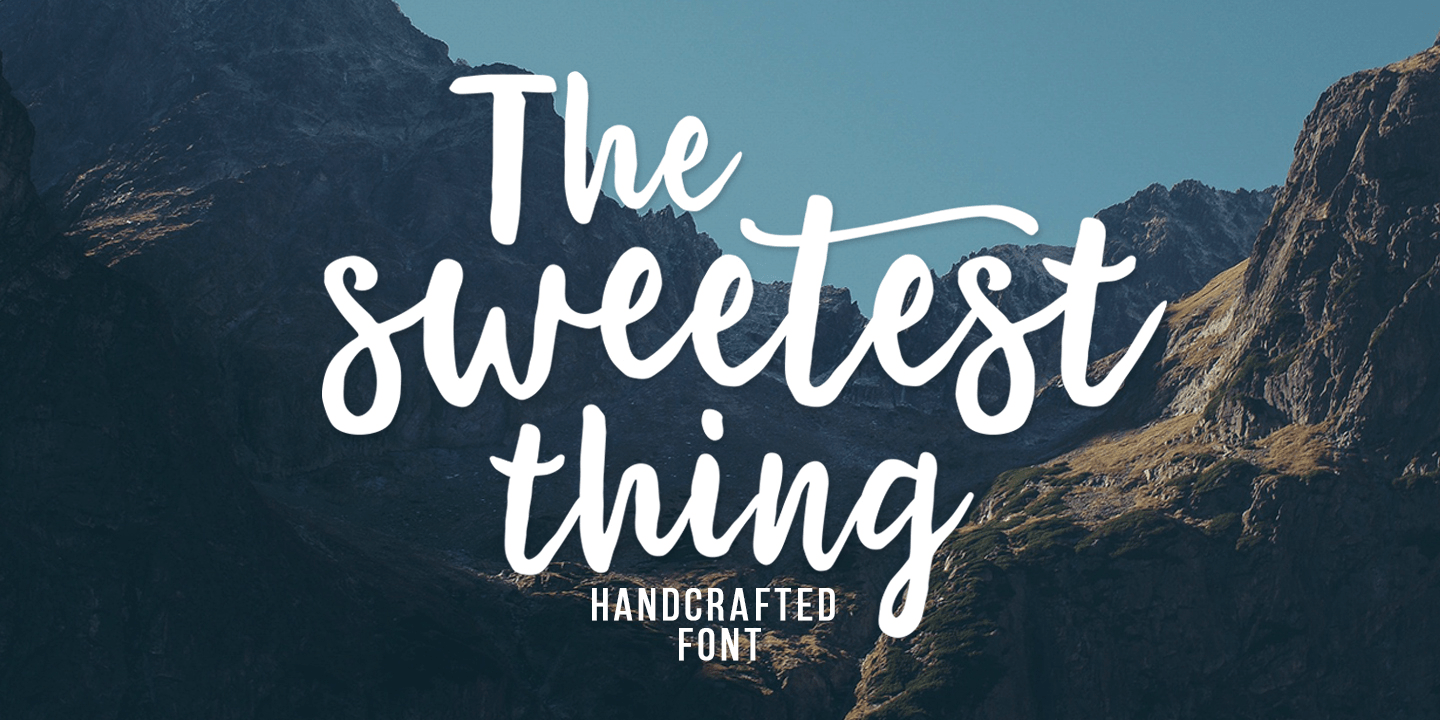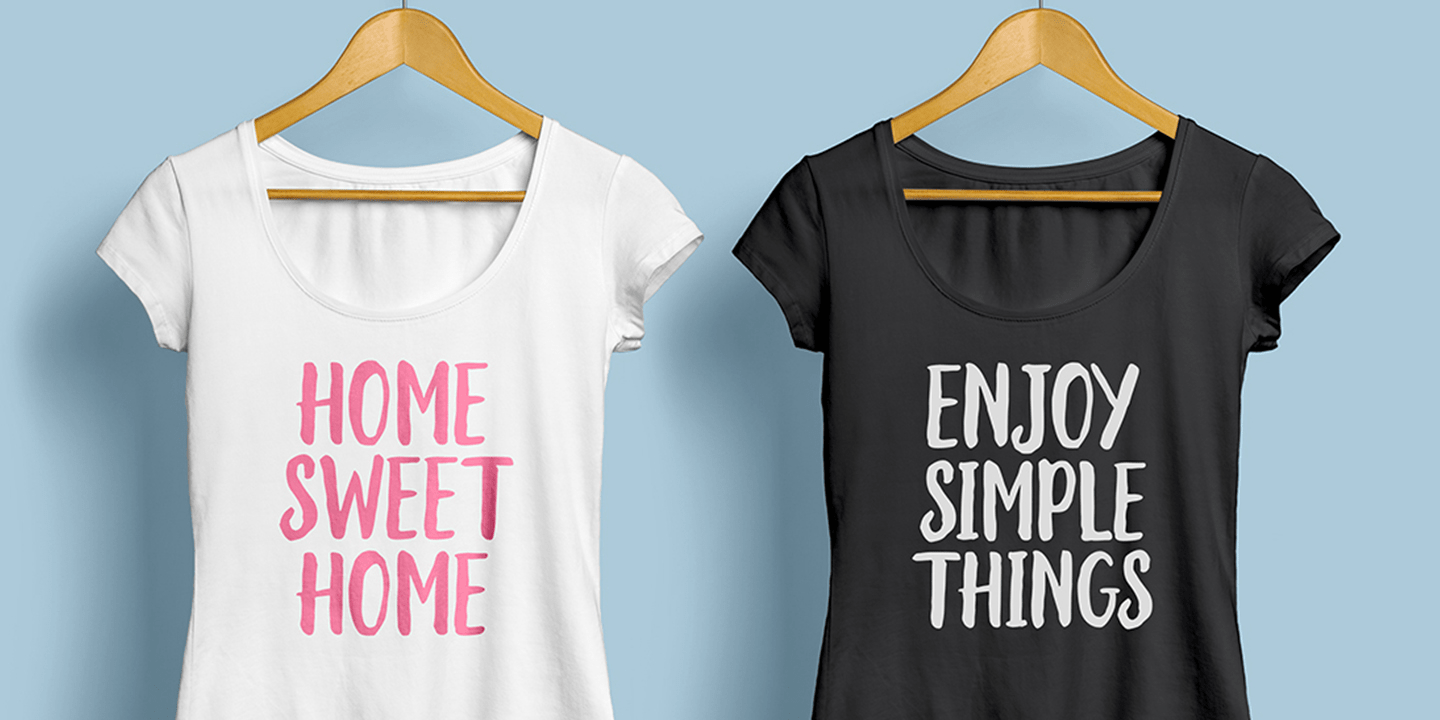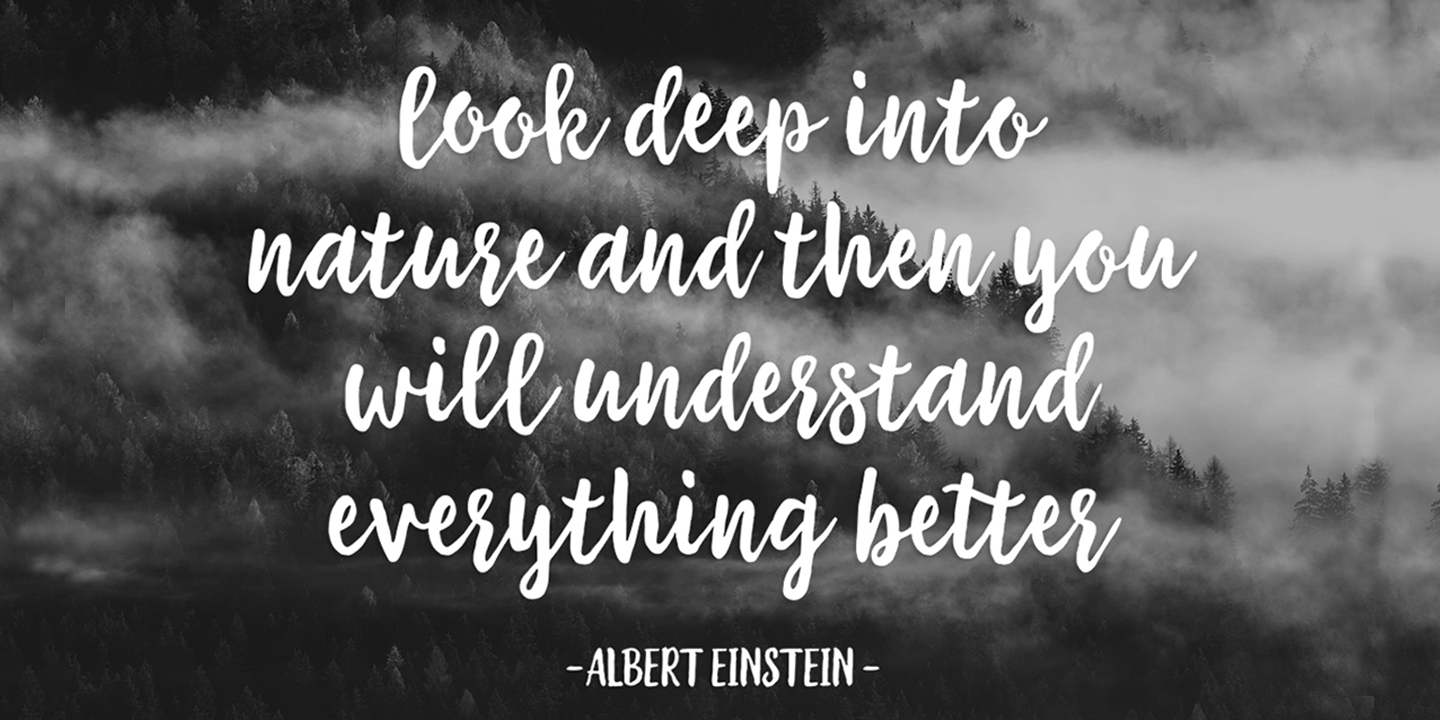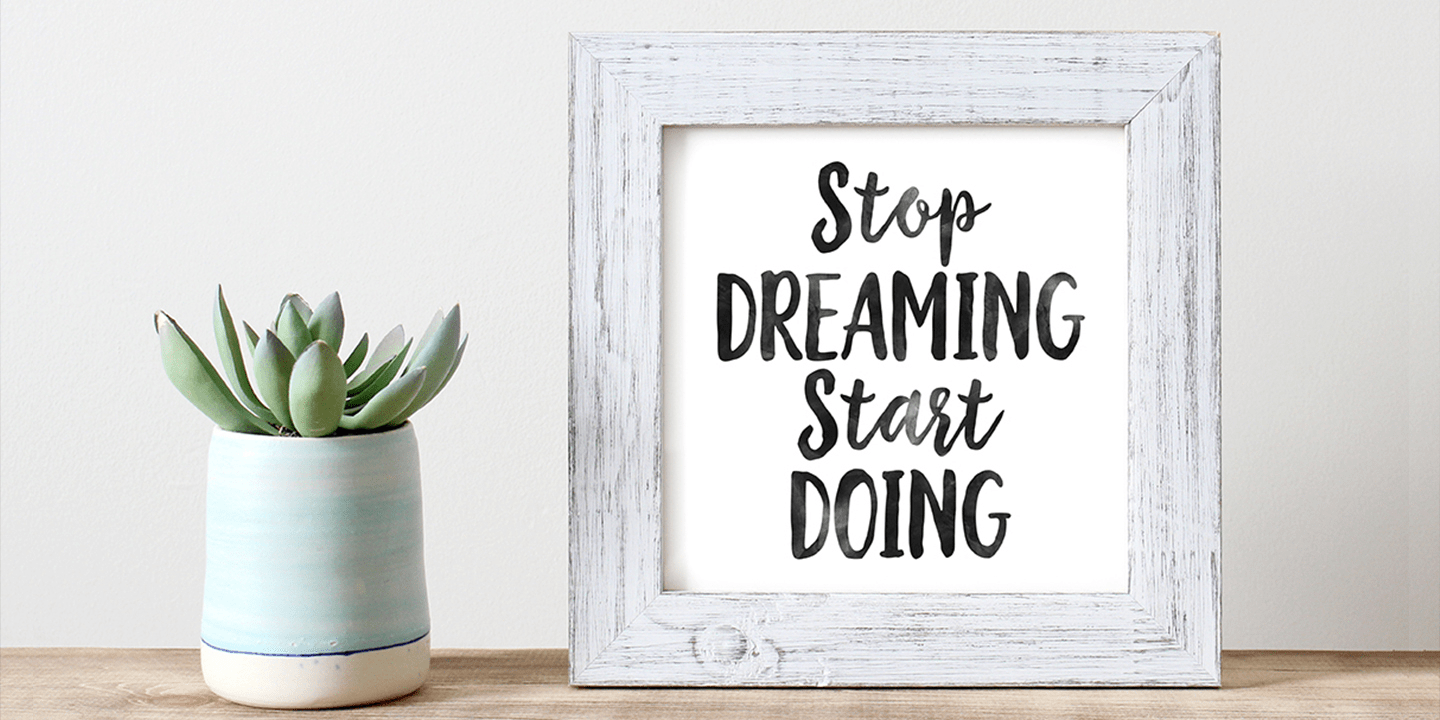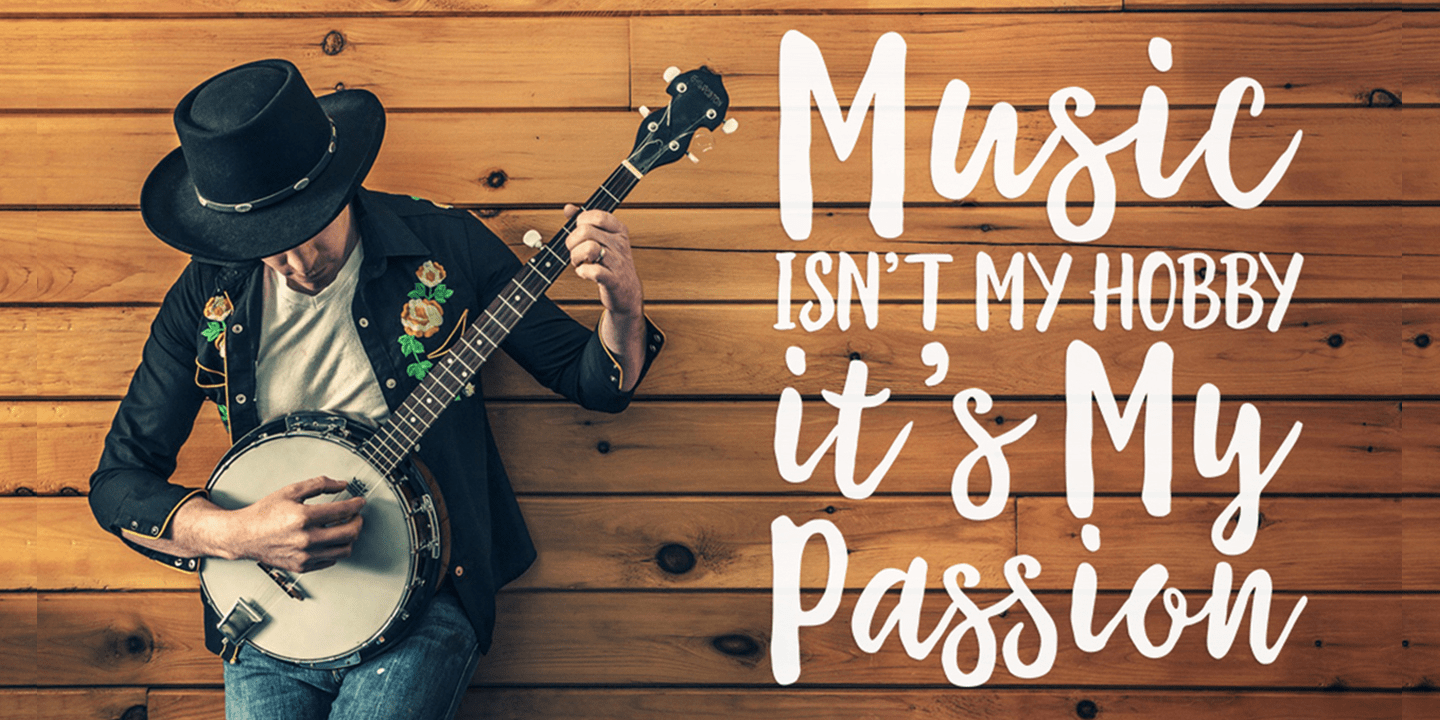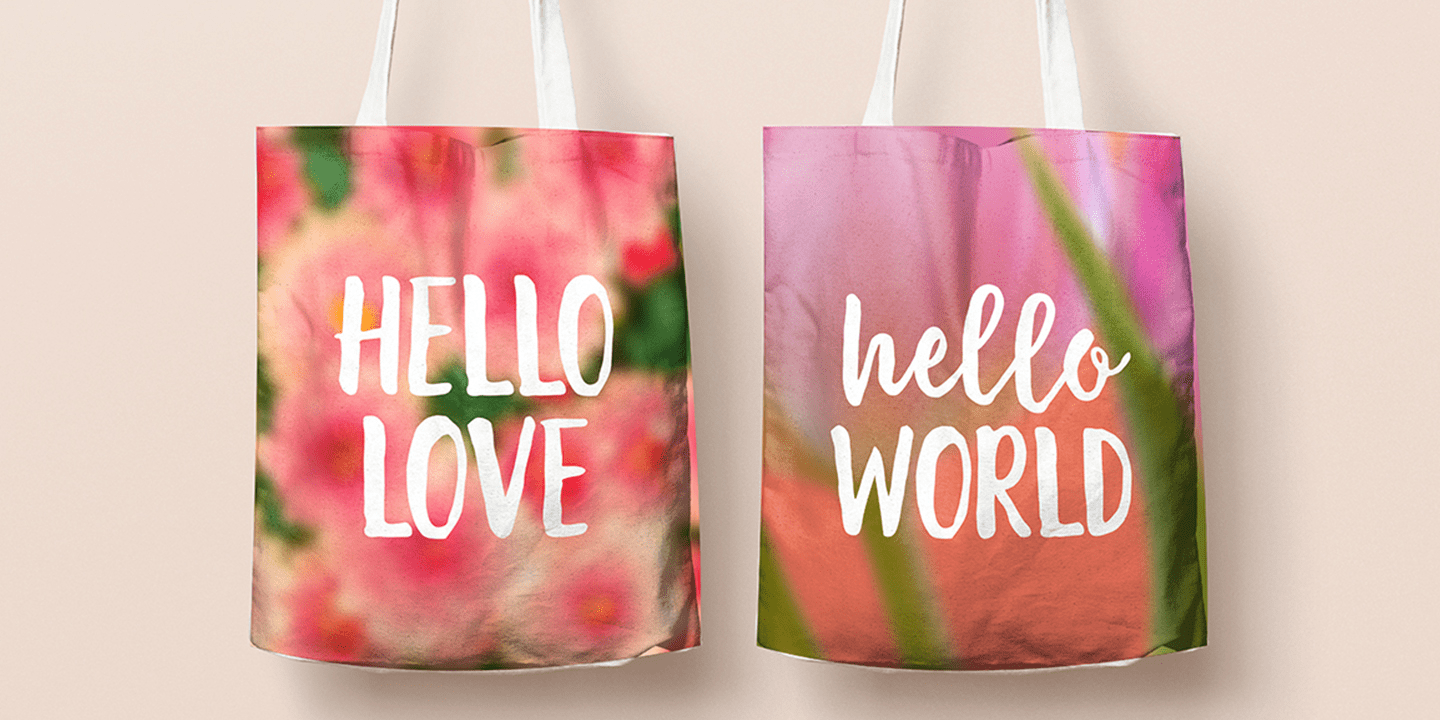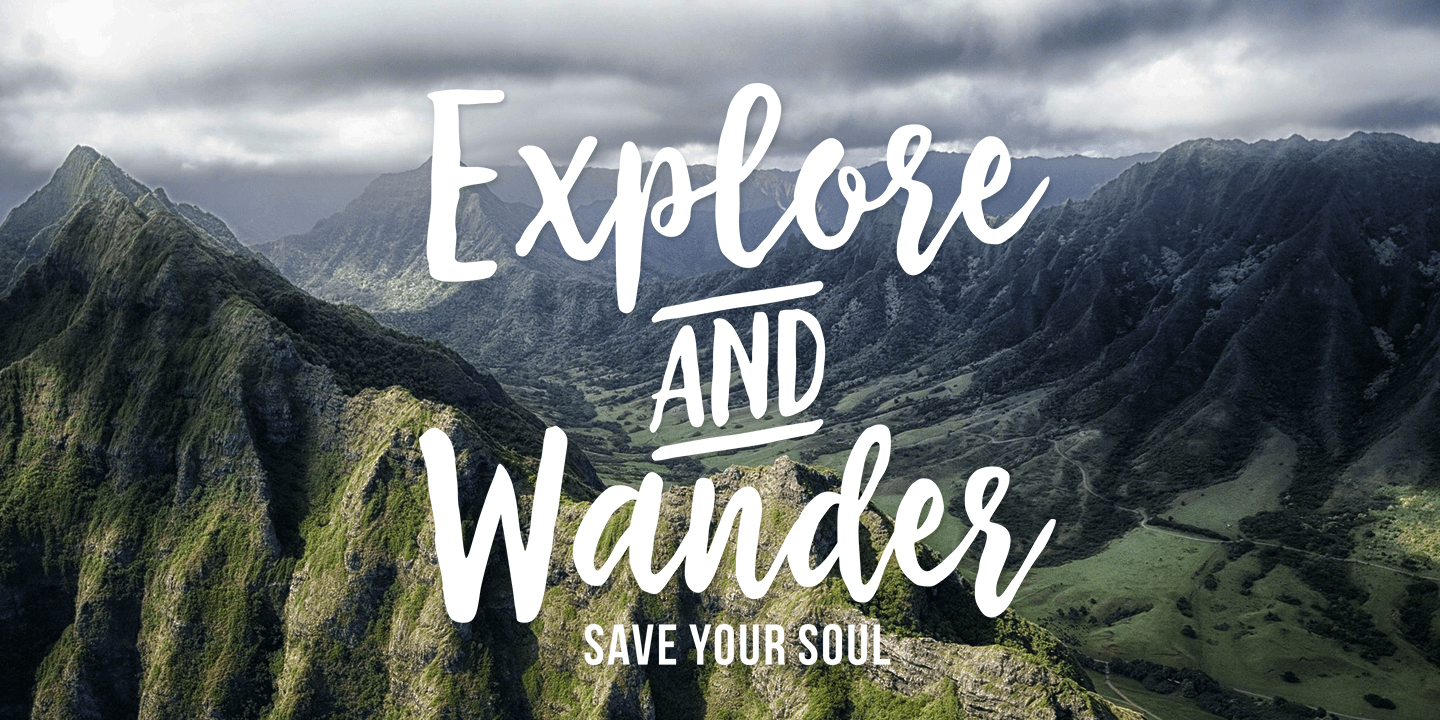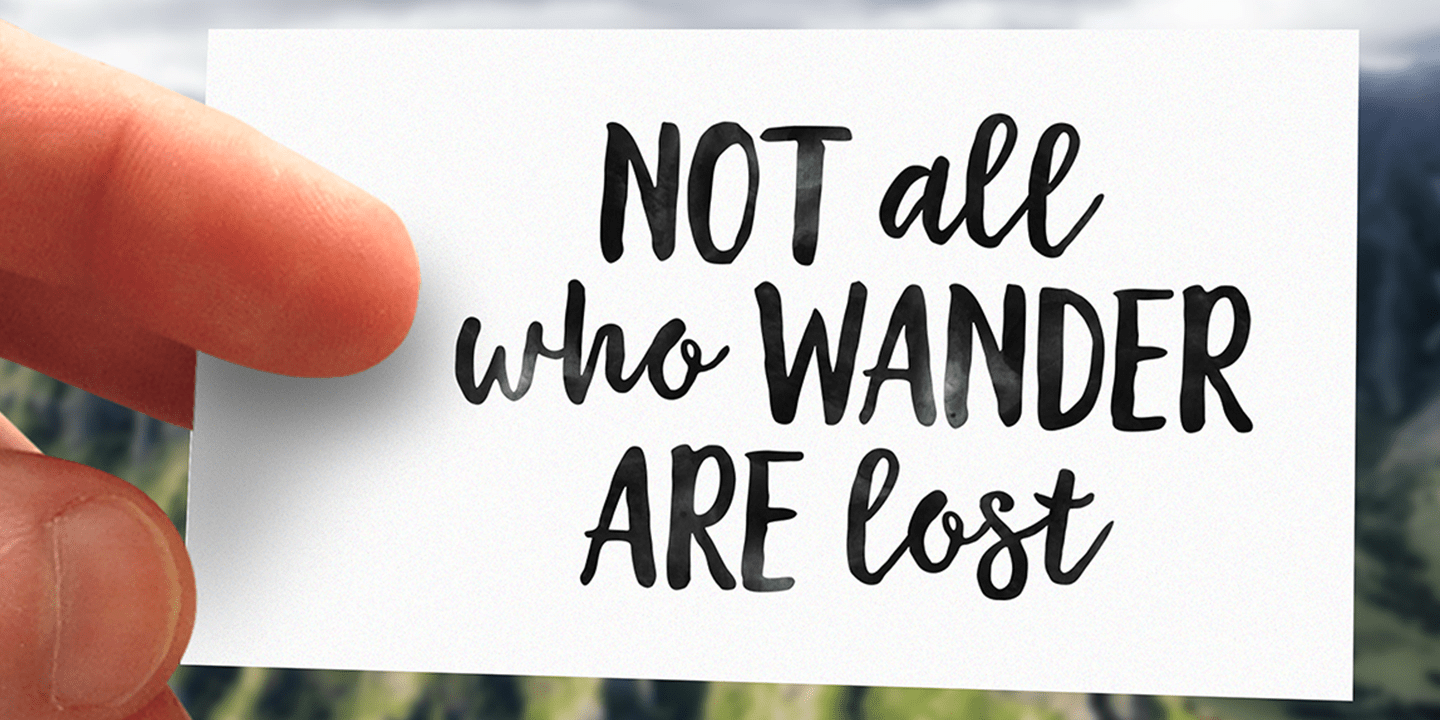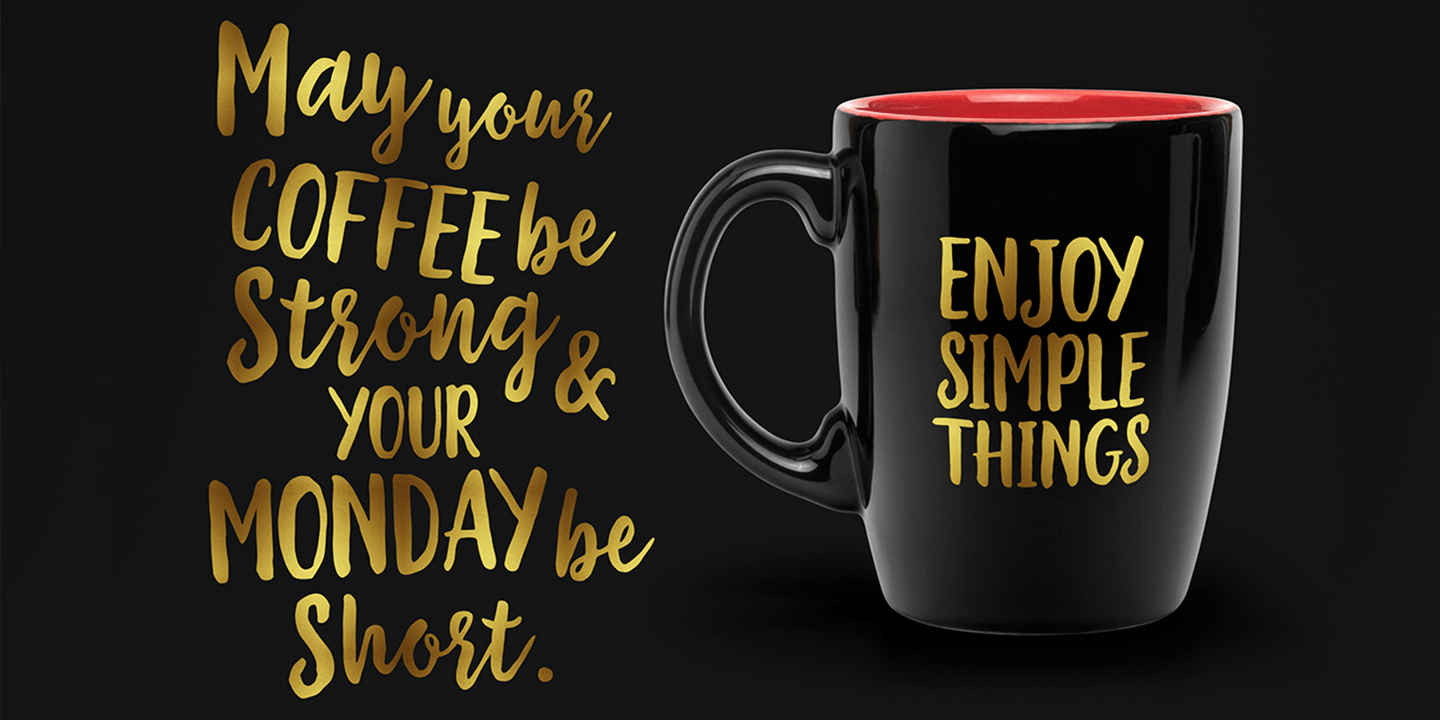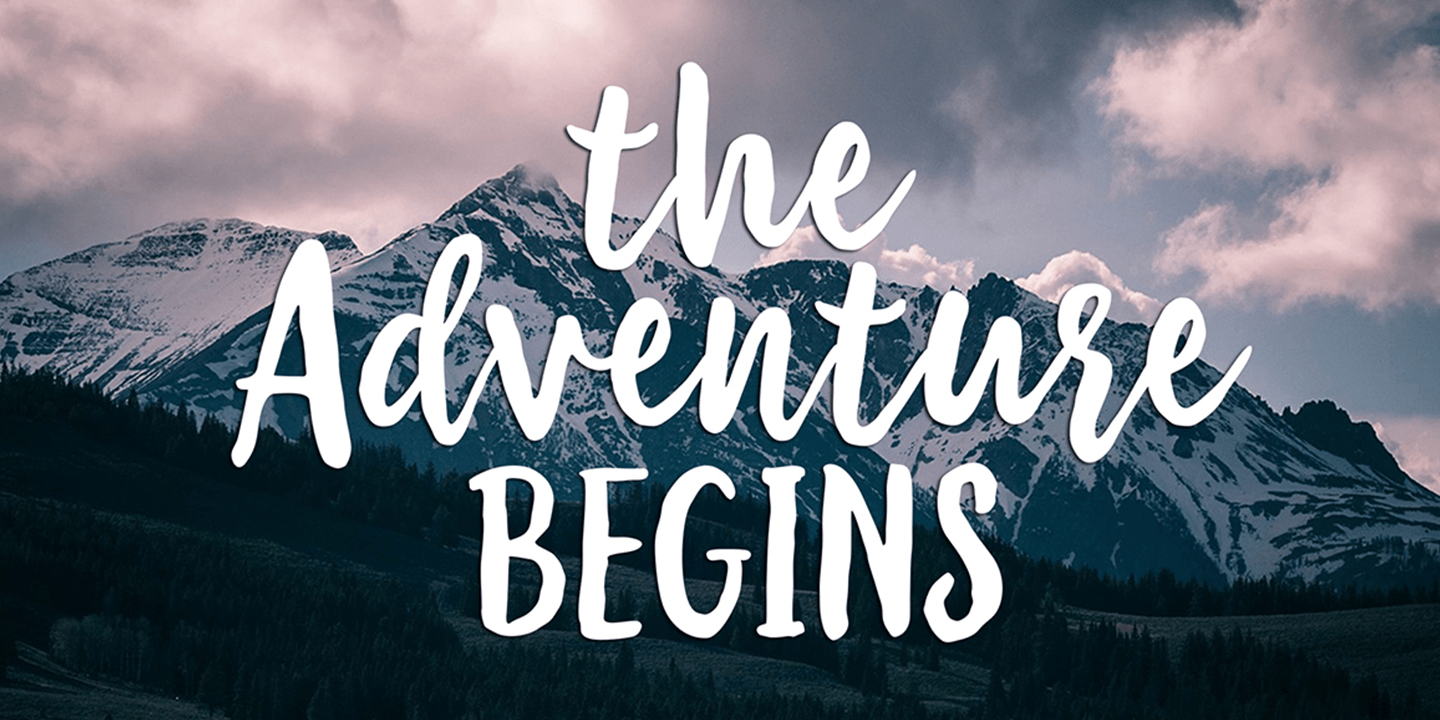
The Sweetest Thing
Font Family by Seniors Studio
The Sweetest Thing is a handmade, fresh typeface, created with brush and ink. With a contemporary approach to design, it's hand-painted, natural and combines a delicate script with an irregular baseline.
Suitable for use in watercolor design or as a hand brushed bold letters, such as novel titles, apparel, invitations, quotes, book titles, stationery design, branding, logos, greeting card, T-shirt, packaging design, Poster and more. Includes a complete set of uppercase and lowercase letters, as well as multi-language support, numbers, punctuation, ligatures and alternative character.